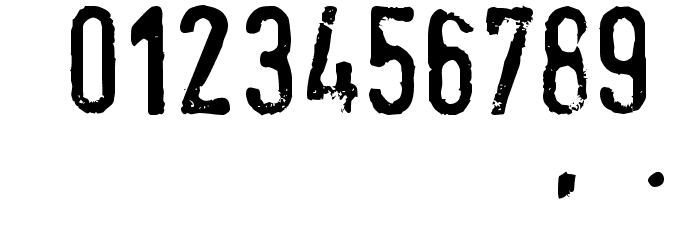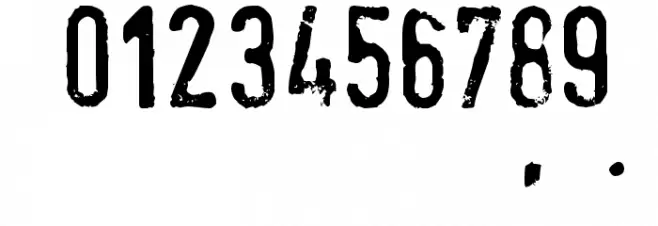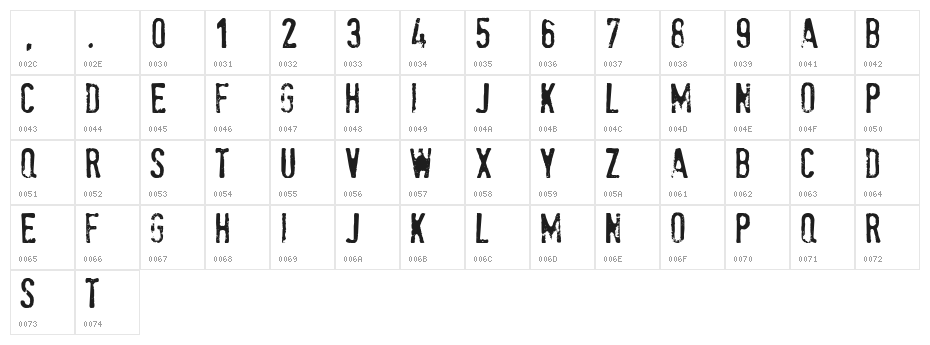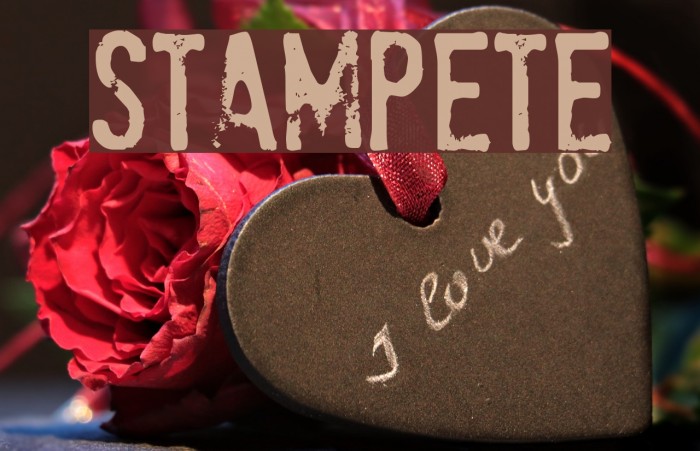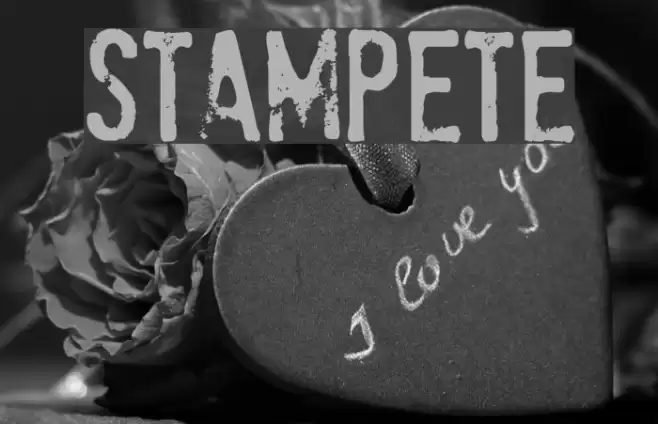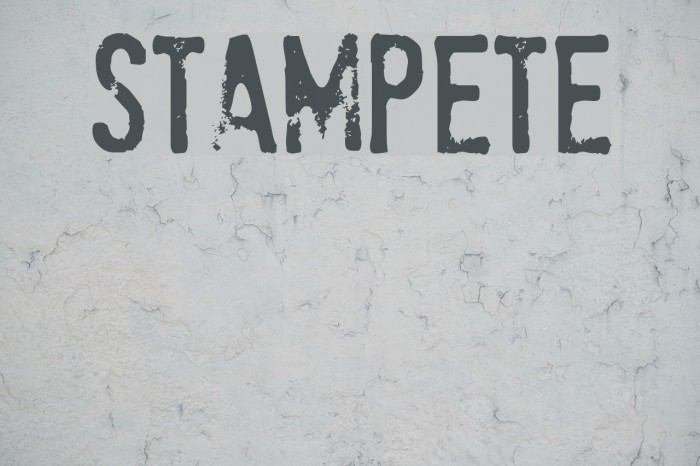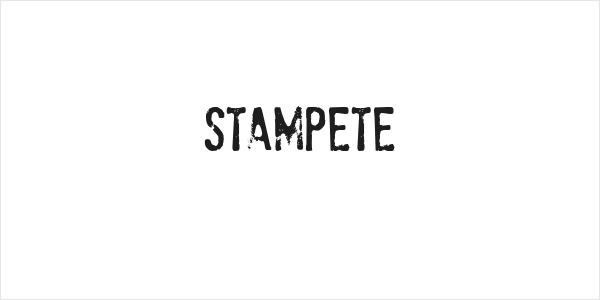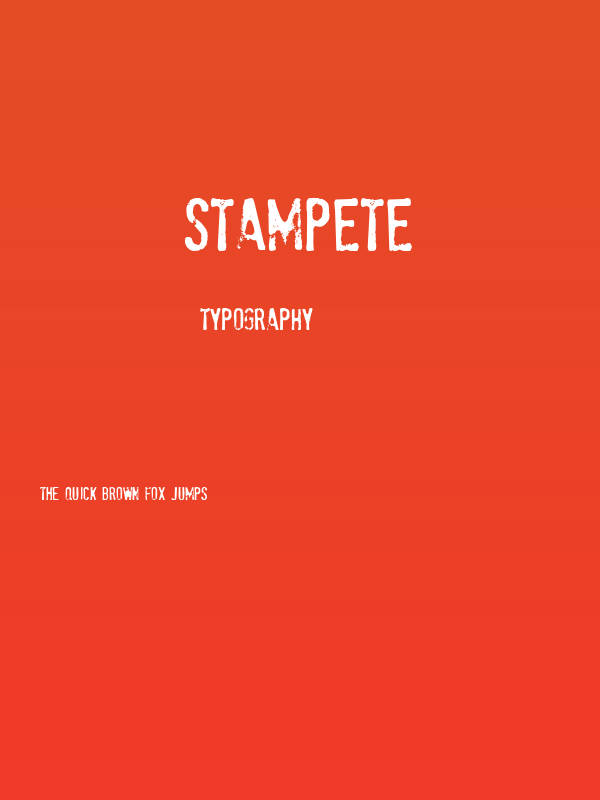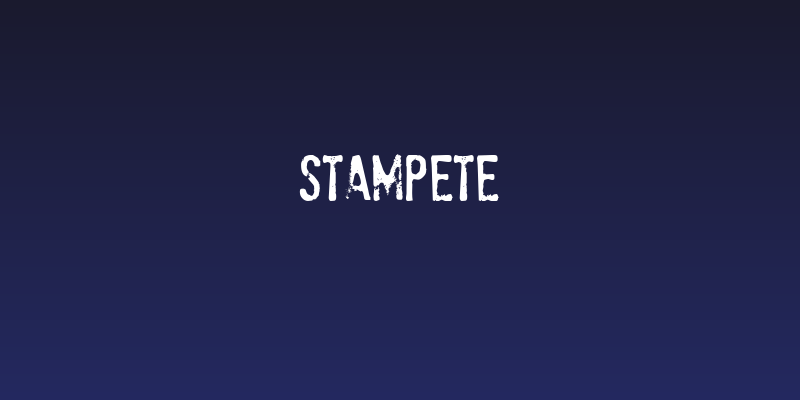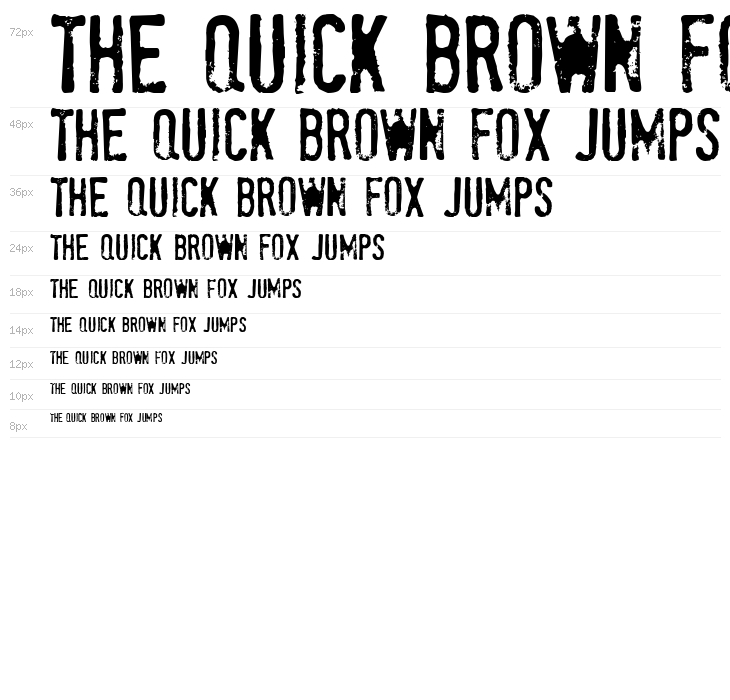
stamPete Font
stamPete Description
This font features a distressed, grunge style with a weathered appearance, giving it a rugged and vintage feel. The characters are bold and uppercase, with a rough texture that suggests wear and tear, reminiscent of old stamps or typewriter keys. The irregular edges and inconsistent ink coverage add to its unique character, making it ideal for designs that require a touch of authenticity and rawness. The numbers and punctuation follow the same style, ensuring a cohesive look across all elements.
| Proposed Projects | Ideal for projects that require a vintage or industrial look, such as posters, album covers, branding for rustic or artisanal products, and any design that seeks to convey a sense of authenticity and history. |